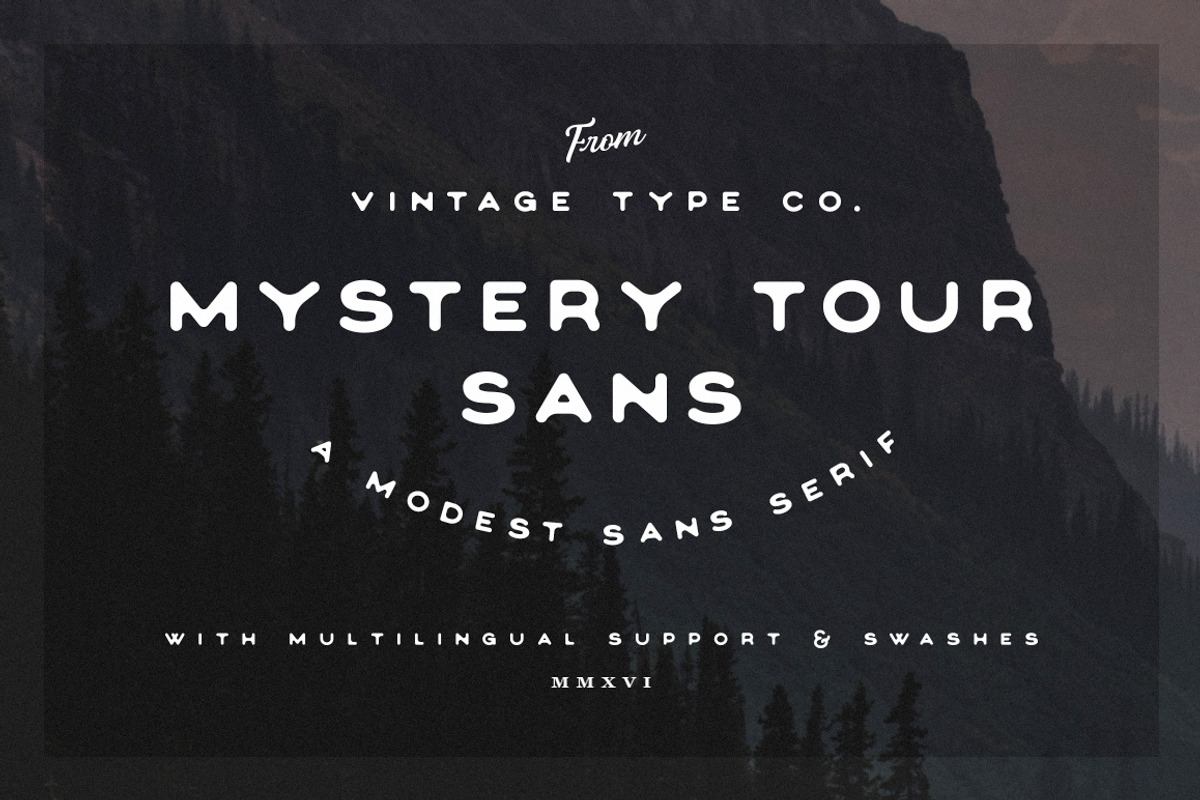
Mystery Tour Sans Font Free Download is a groovy, retro-inspired sans-serif typeface that brings a vibrant, playful energy to any project. With its rounded edges, bold curves, and vintage flair, this font is perfect for music posters, event flyers, funky branding, t-shirt designs, and psychedelic-themed visuals.
Its clean sans style mixed with quirky personality makes it highly versatile—great for both large display use and eye-catching logos. Mystery Tour captures the spirit of the '60s and '70s while staying relevant for modern creative work.